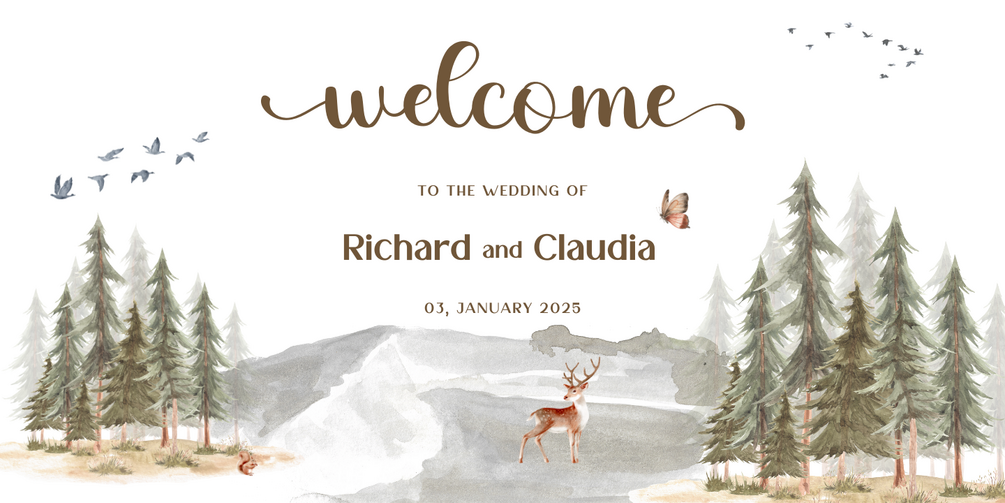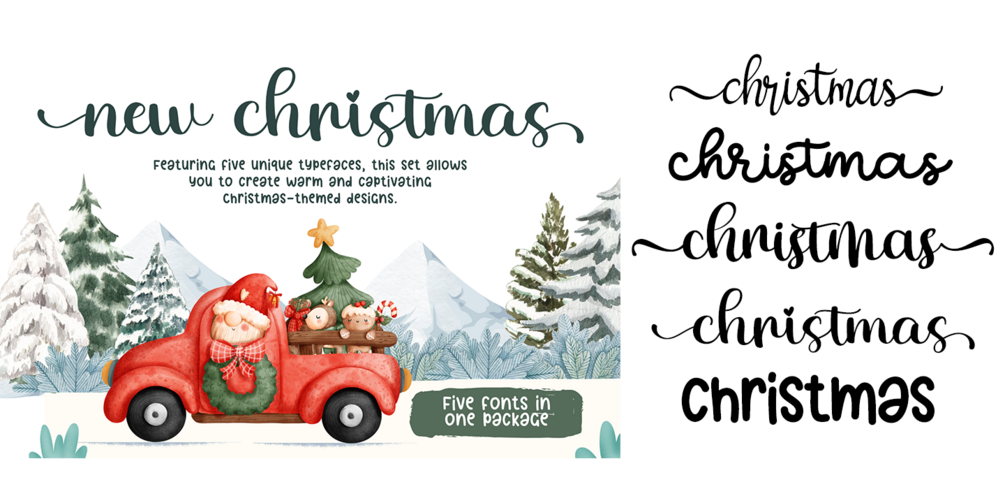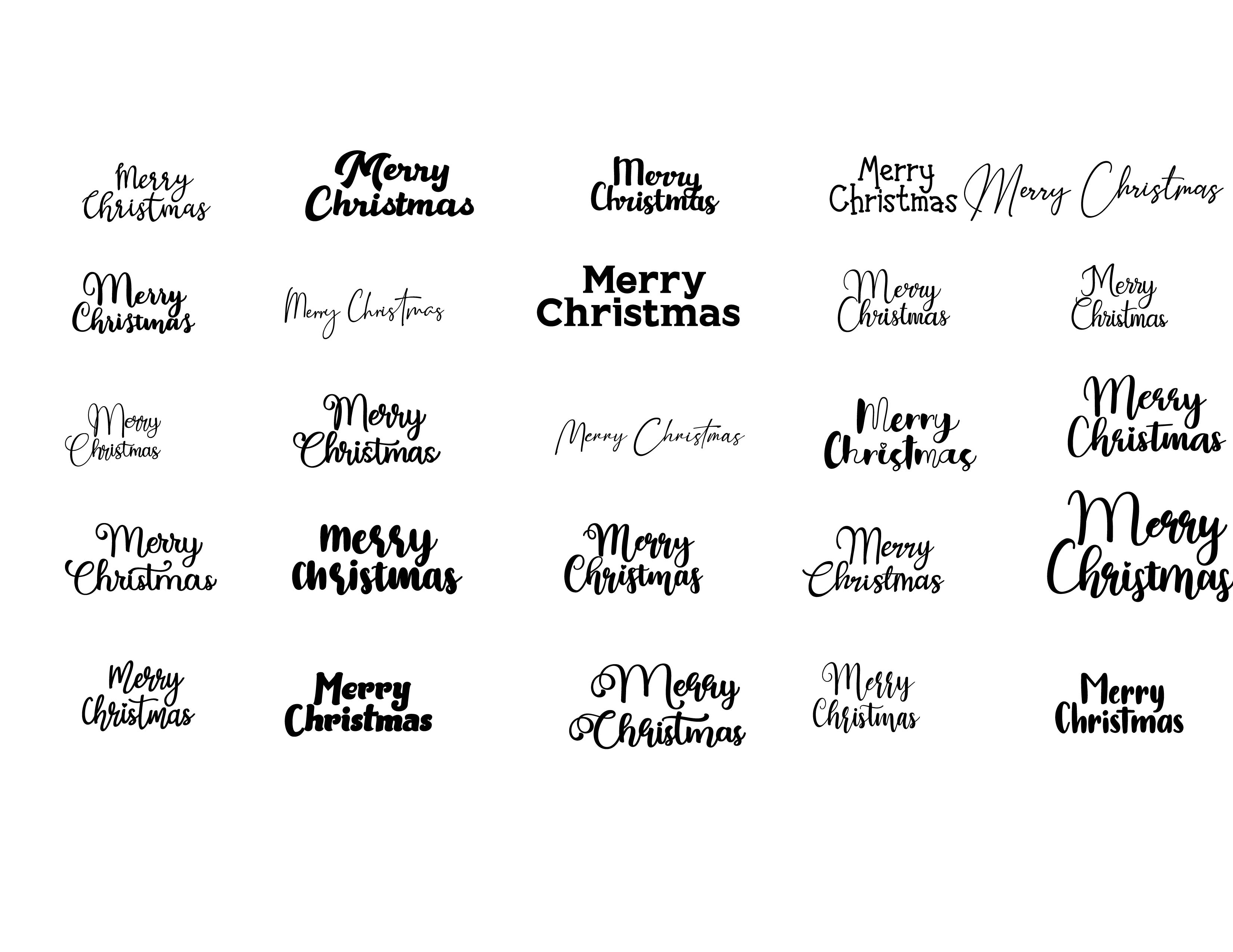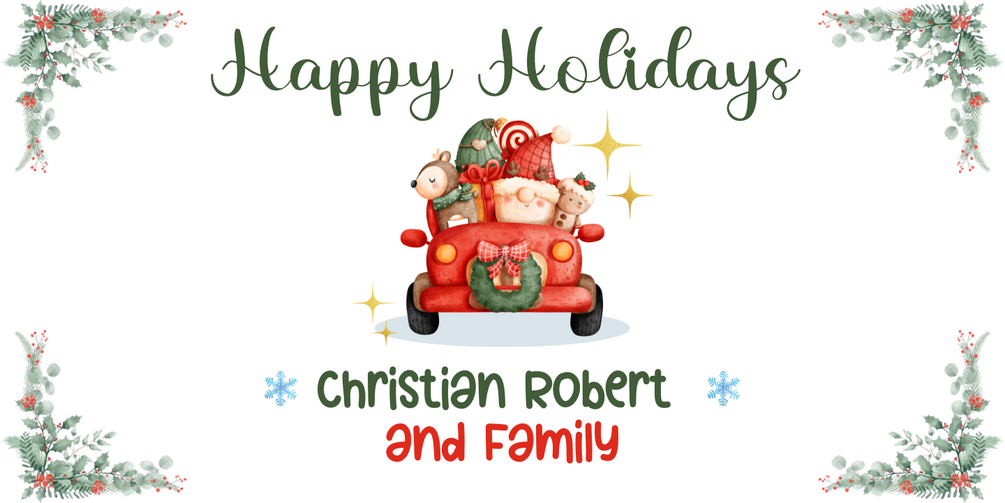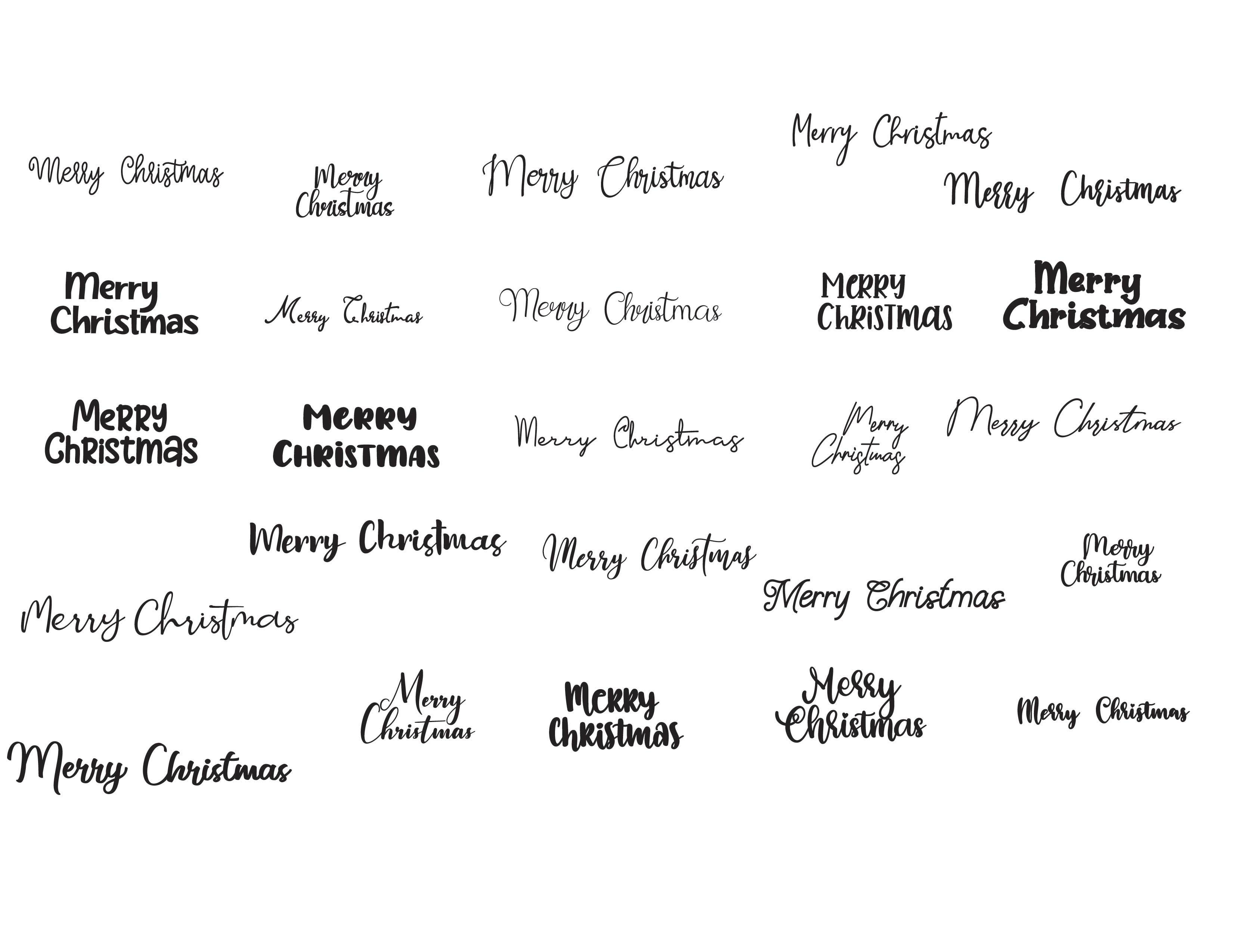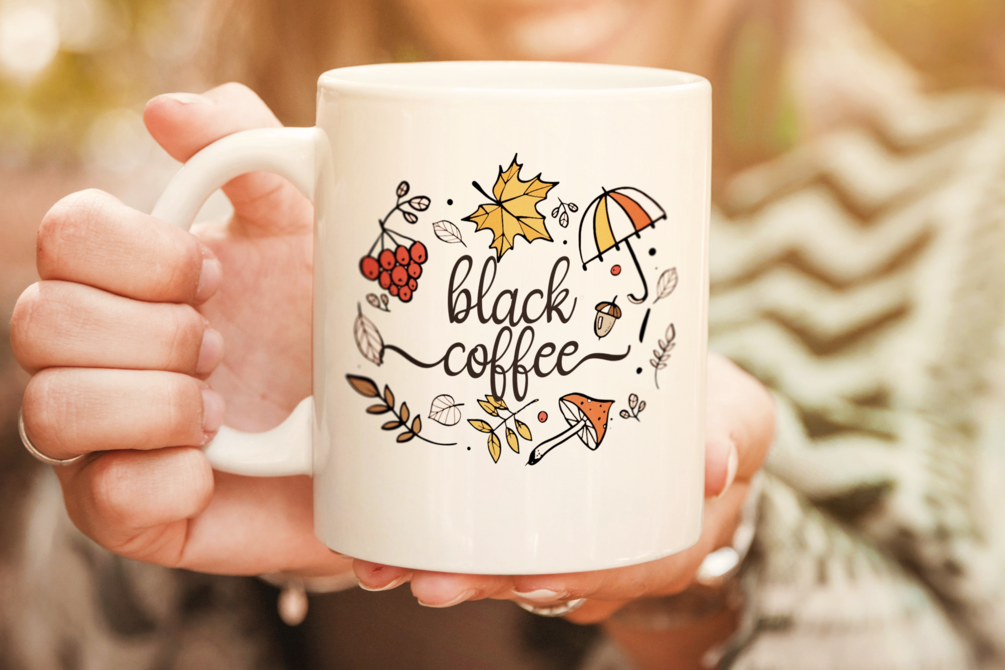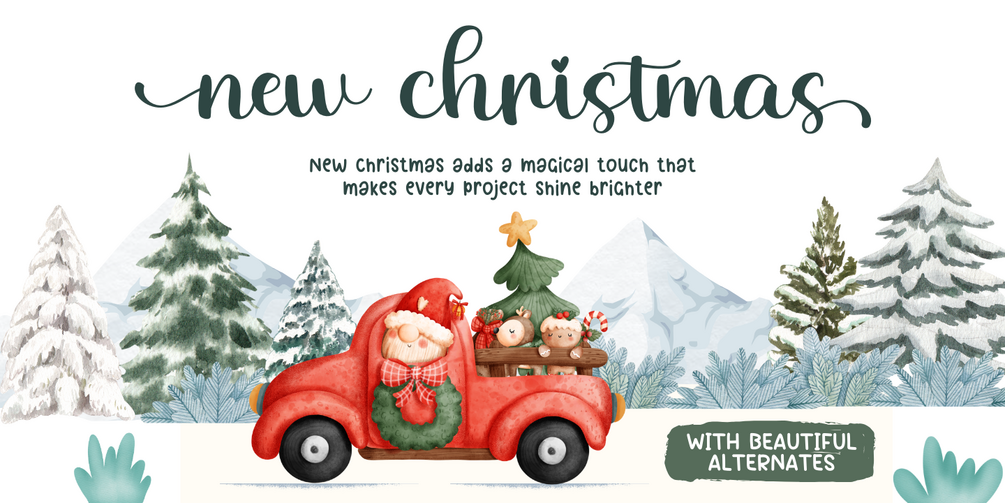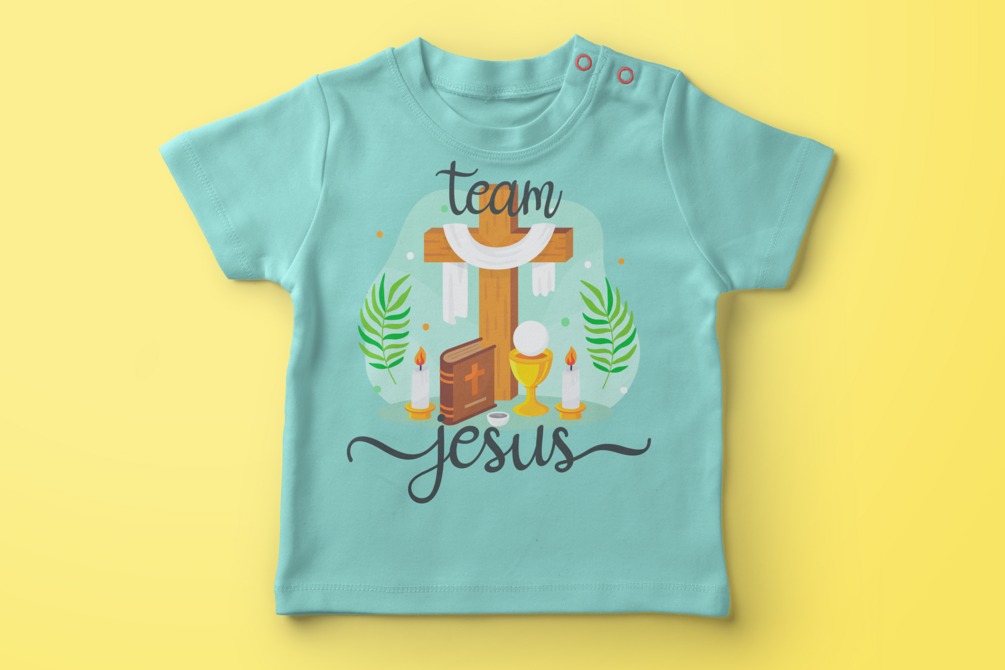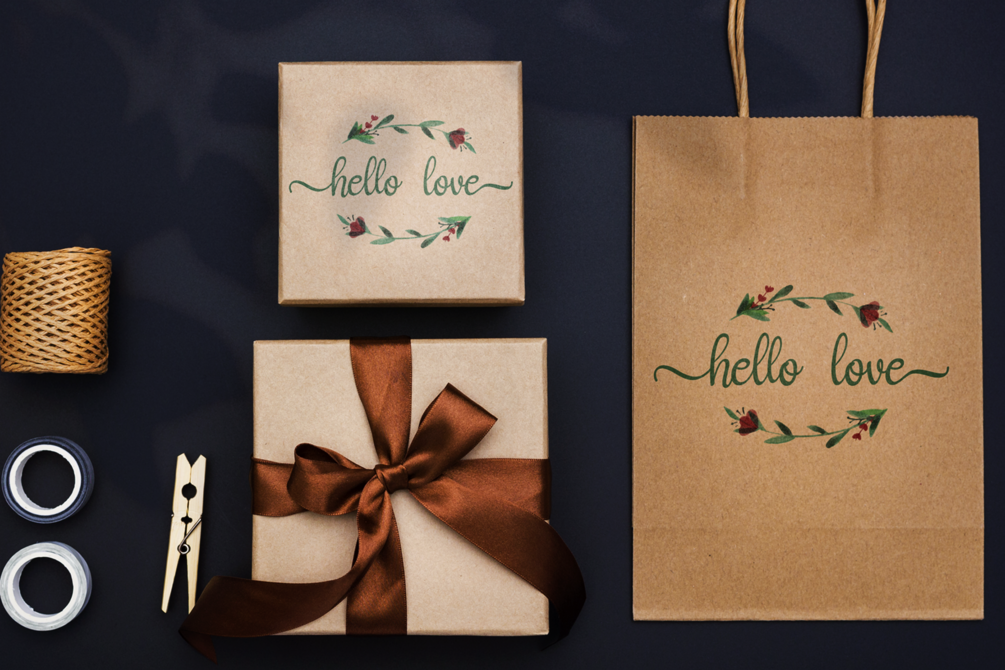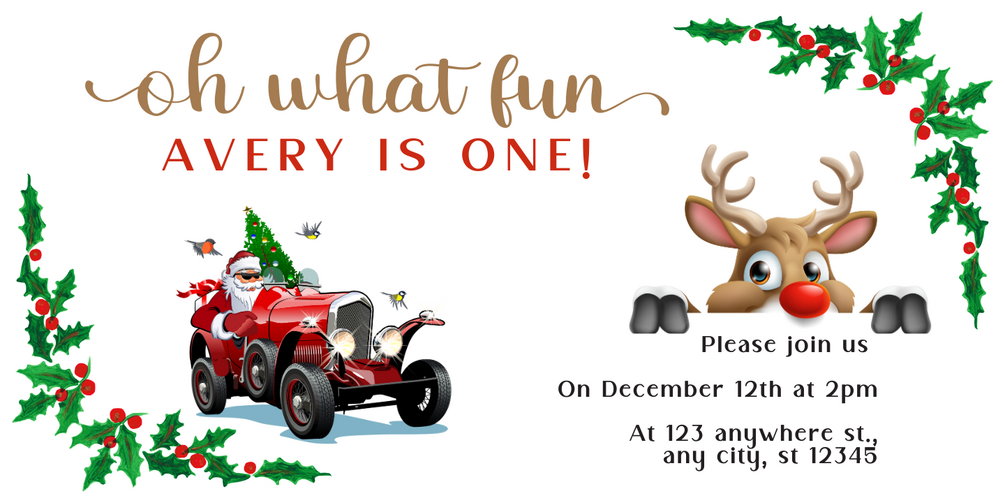
Imagine... Living letters dancing like golden snowflakes on a Christmas nightβnatural, warm, luxurious, and instantly touching your buyer's soul. This is the power you hold.
π οΈ THE ULTIMATE FONT FAMILY (5+1 Exclusive Styles)
Unleash your creativity with 6 unique styles in one powerhouse package:
- New Christmas (The Classic Showstopper)
- New Christmas Two
- New Christmas Three
- New Christmas Four
- New Christmas Mono